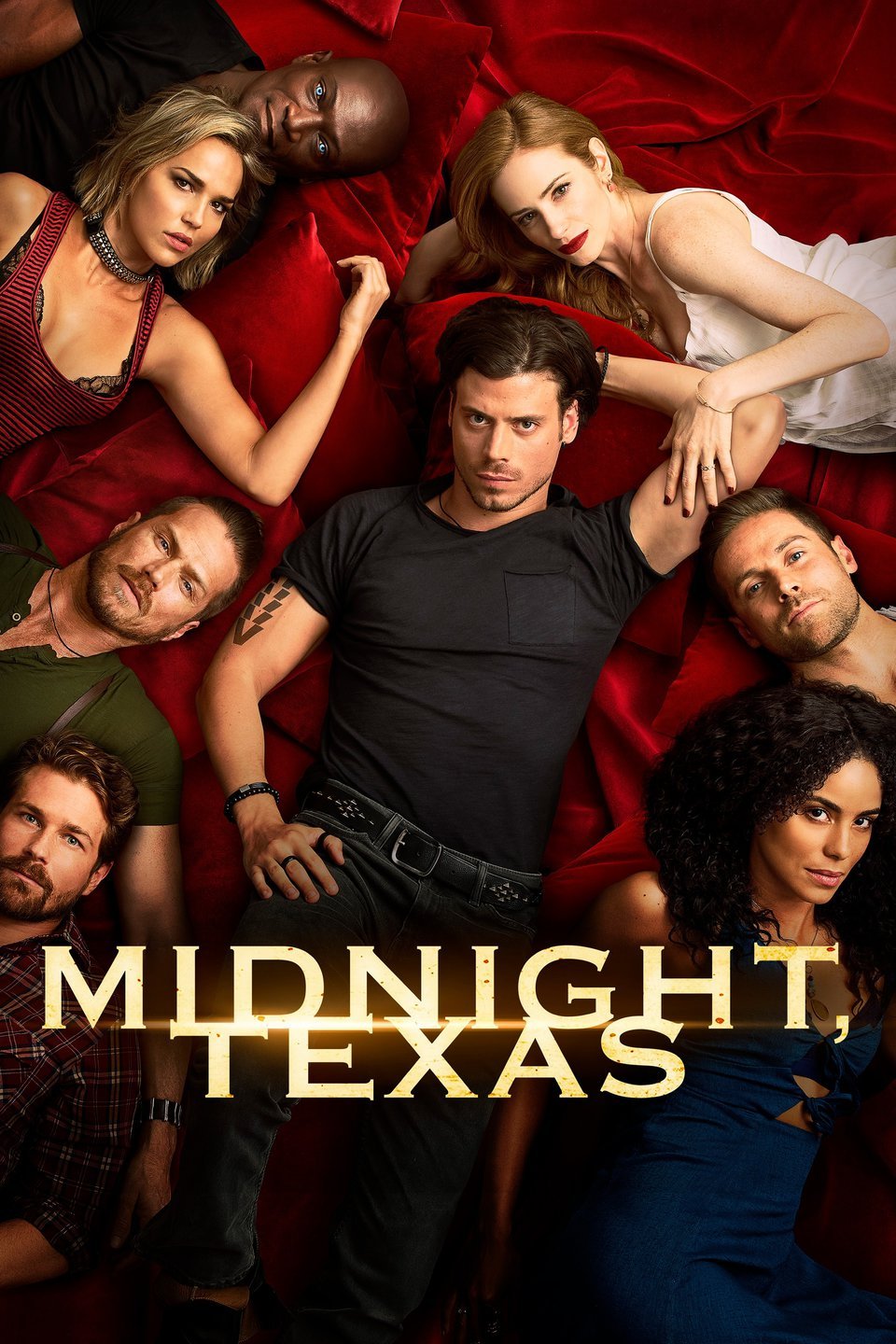
Midnight Texas Font
DramaMidnight, Texas is a supernatural thriller series where various supernatural beings coexist and face various dangers while trying to survive and protect their community. The series is based on the novels by Charlaine Harris, the author of the Sookie Stackhouse series (True Blood).
The title of the TV series is set in Copperplate Gothic font, designed by Frederic W. Goudy and released by American Type Founders in 1901. A free alternative, Copperplate by CastCraft can be downloaded for free from the Fonts Used Section.